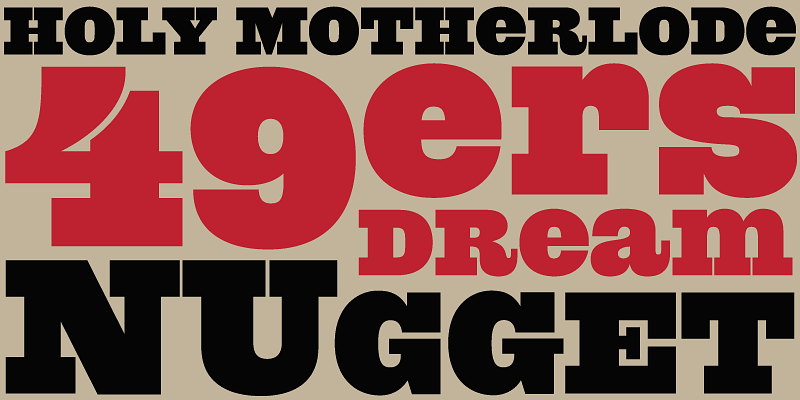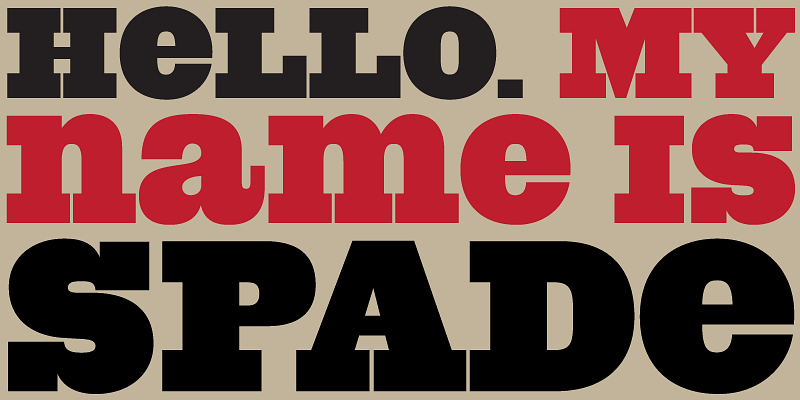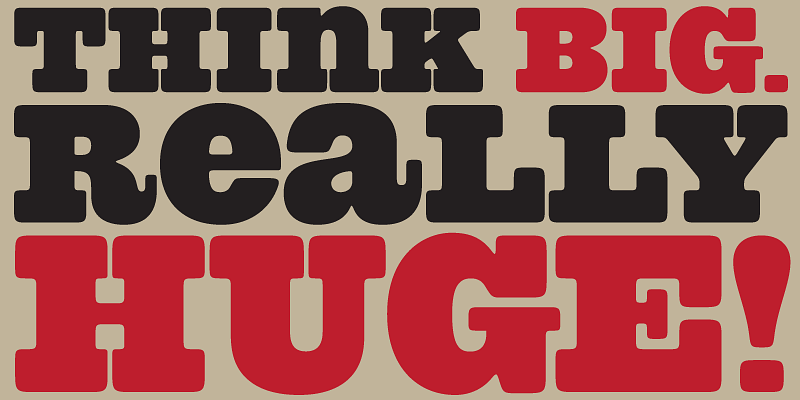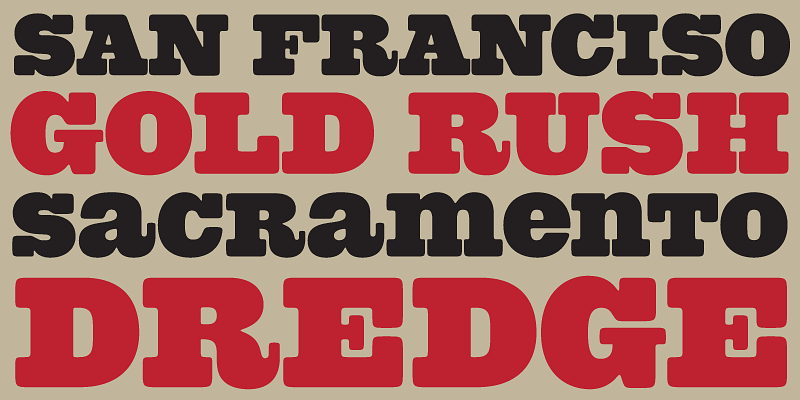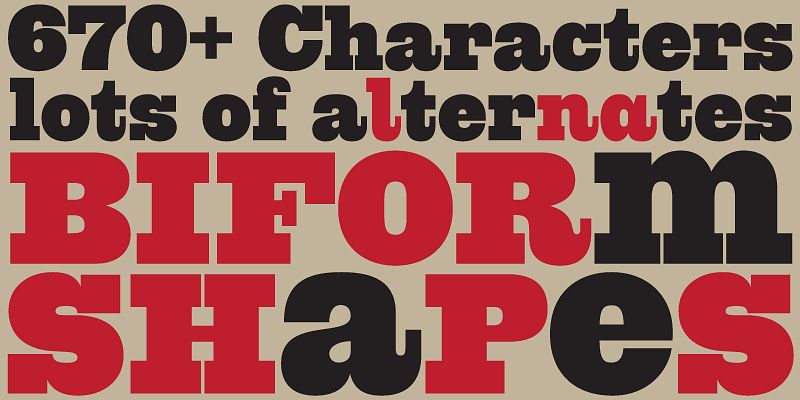
Spade is a very, very big double whammy of pure slab footprint, sharp and soft, cowboy and cowgirl, country and western, shot and chaser. It’s also quite modern in many aspects, not least of which is the smooth flow of the biform shapes.